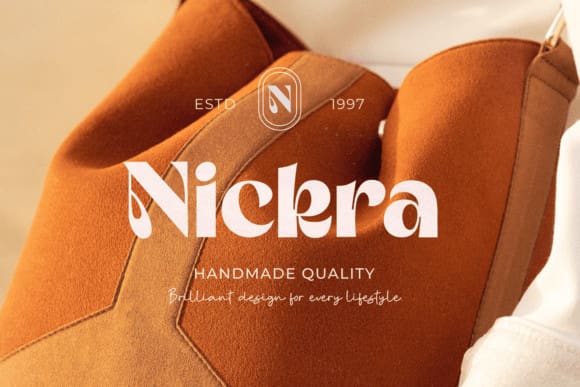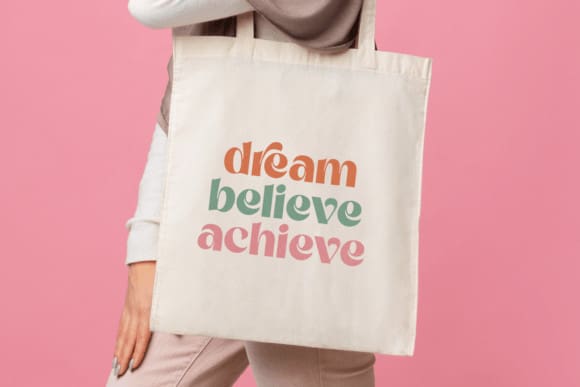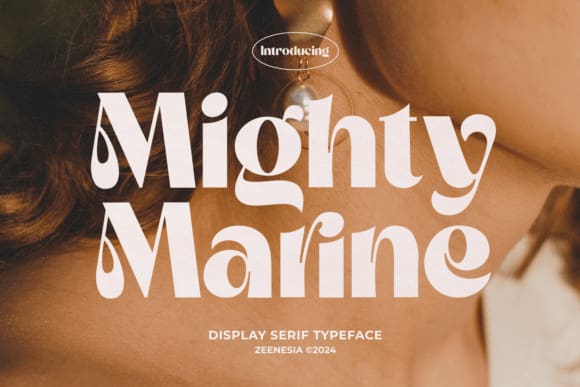
Mighty Marine Font
Mighty Marine Font – an audaciously bold, vintage-inspired serif typeface that effortlessly marries strength and softness. Showcasing a seamless blend of classic and contemporary design elements, this robust typeface grants your creative project a striking, yet elegant character. Mighty Marine is designed to steal the spotlight in large sizes, making it an optimal choice for headline creation and typographical masterpieces.
Besides Open Type features, this font also boasts of stylistic alternates and ligatures that heighten its versatility, allowing your work to stand out. Whether it’s championing an editorial project, anchoring a logo, transforming digital landscapes as a web-font, elevating clothing brand aesthetics, defining product packaging, crowning magazine headers, or artistically overlaying text against backgrounds, Mighty Marine promises to make a statement.